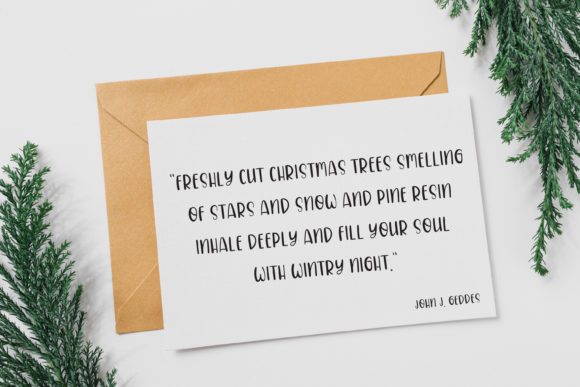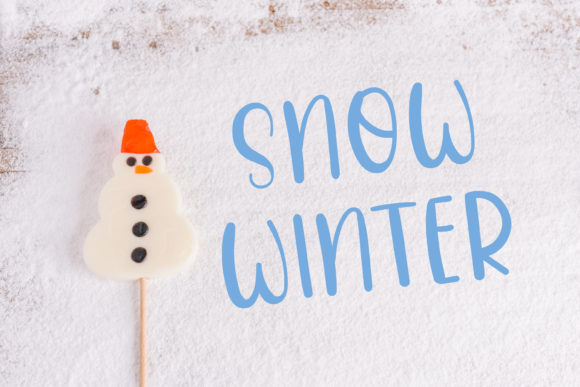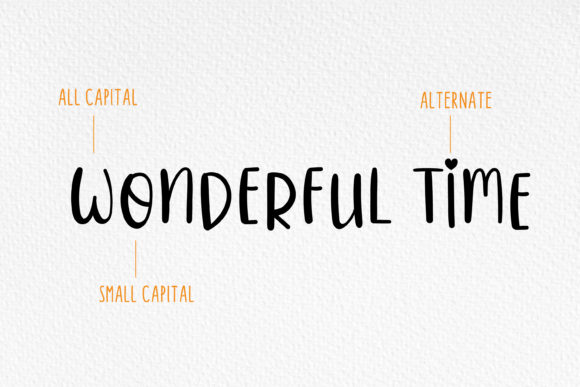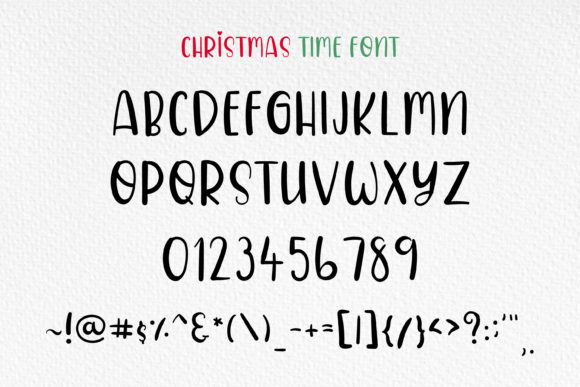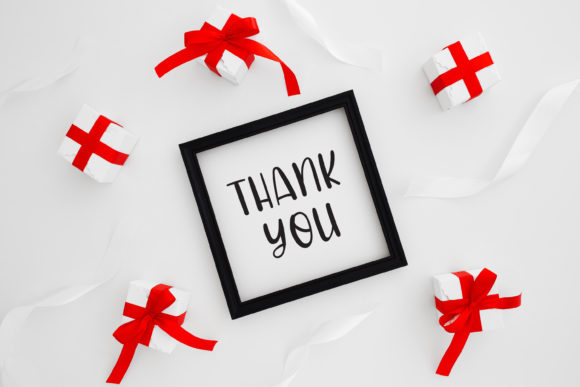
The Magic of Christmas Time Font: A Designer’s Delight
It’s that time of the year again – the season of joy, giving, and of course, designing! As I sat at my desk, sipping hot cocoa, and working on a festive project for a client, I realized I needed the perfect font to capture the essence of Christmas. That’s when I stumbled upon Christmas Time Font, a sweet and jolly handwritten font that stole my heart. In this article, I’ll share my experience with this beautiful font, its features, and how to make the most of it in your designs.
A Personal Review: What I Love About Christmas Time Font
Christmas Time Font has become an instant favorite in my design arsenal. Here’s what I love about it:
• ✨ Incredibly versatile style: This font can be used for a wide range of projects, from holiday cards and invitations to festive posters and social media graphics.
• ✅ Easy to read: Despite its playful and cursive nature, Christmas Time Font remains clear and legible, even at smaller font sizes.
• 🎉 Unique character set: The font comes with a delightful set of glyphs and stylistic alternates that add a touch of whimsy to your designs.
While Christmas Time Font is a stunning addition to any design project, there are a few minor quirks to be aware of:
• 🤔 Limited use of uppercase letters: Some users have noted that the uppercase letters can appear a bit inconsistent, which might limit its use in certain design contexts.
• ⚠️ Requires OpenType support: To access the font’s advanced features, such as glyphs and stylistic alternates, you’ll need to use a design platform that supports OpenType.
The Story Behind Christmas Time Font
Christmas Time Font was designed with the intention of capturing the magic and joy of the holiday season. Its creator aimed to craft a font that would be both versatile and delightful, perfect for a wide range of festive designs. Whether you’re a designer, crafter, or creative hobbyist, this font is sure to bring a smile to your face and inspire your holiday projects.
Font Name Christmas Time Font
Author Pila Studio
What type of projects is Christmas Time Font best suited for? Christmas Time Font is perfect for holiday-themed designs, such as Christmas cards, invitations, posters, and social media graphics.
Does Christmas Time Font support OpenType features? Yes, Christmas Time Font comes with OpenType features, including glyphs and stylistic alternates, which can be accessed in design platforms that support OpenType.